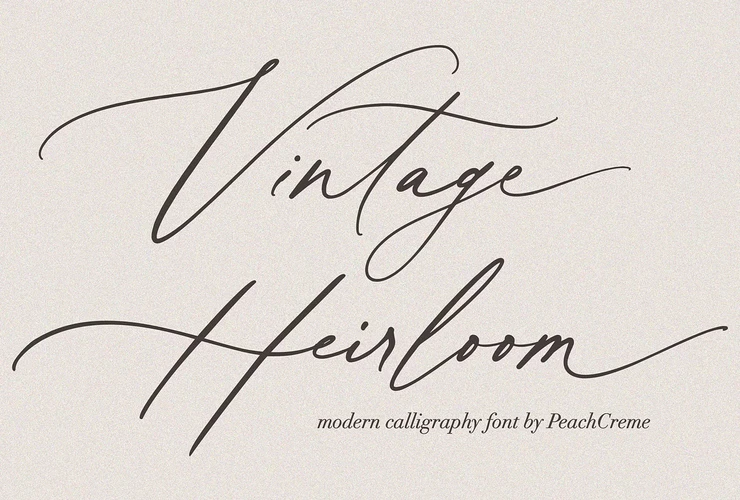
Introducing Vintage Heirloom: A Gorgeous Calligraphy Font for Elegant Designs
Discover the timeless beauty of Vintage Heirloom, a stunning calligraphy font that adds elegance and style to your design projects. Created for designers who wish to enhance their work with a touch of sophistication, Vintage Heirloom is perfect for a variety of applications, from wedding invitations to upscale packaging.
Key Features of Vintage Heirloom
Vintage Heirloom is meticulously designed to provide a luxurious, hand-calligraphy look. Here are some of its standout features:
Comprehensive Character Set: Vintage Heirloom includes a full set of uppercase and lowercase regular letters, numerals, and punctuation.
Extensive Ligatures: With 52 ligatures, this font allows for smooth and natural letter connections, enhancing the handwritten appearance.
Swashes for Lowercase Letters: Each lowercase letter comes with three different swashes, offering flexibility to give your designs a unique and sophisticated touch.
Versatile Usage: Ideal for wedding invitations, save-the-date cards, feminine branding, upscale packaging, websites, and any other projects that require a handwritten and luxurious touch.
Enhance Your Designs with Vintage Heirloom
Vintage Heirloom is crafted to make your text stand out with its elegant and sophisticated style. It’s the perfect choice for designers looking to create captivating and stylish designs for any upscale project.